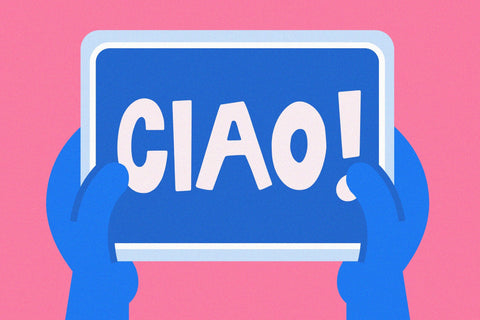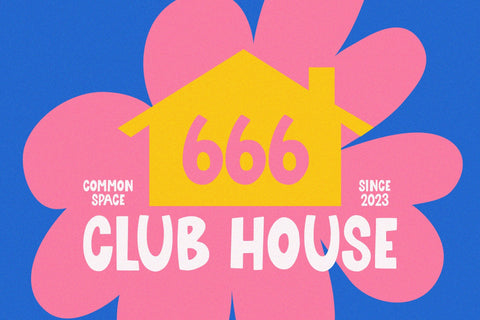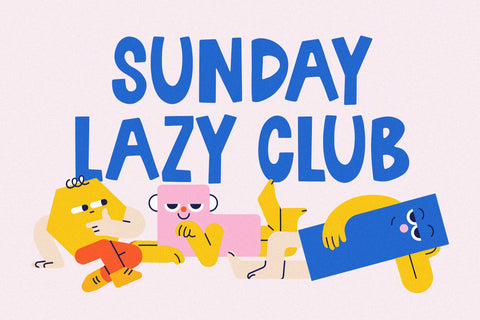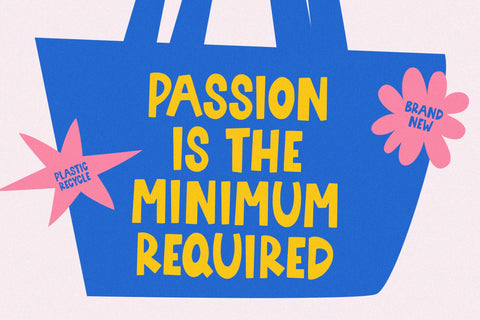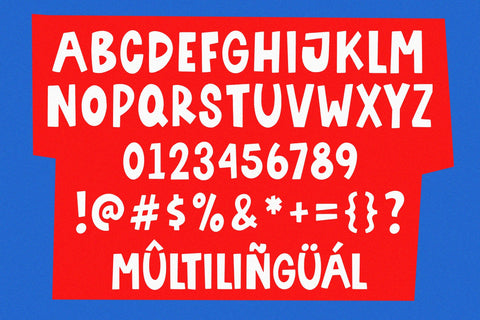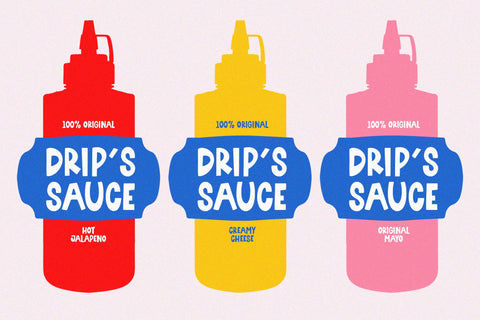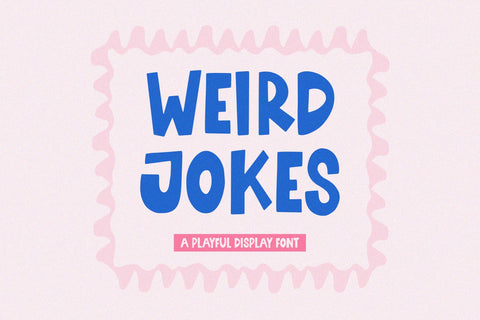
Weird Jokes - Playful Display Font
Weird Jokes is a Playful Display Font
This font is a quirky and energetic display font that brings a fun, whimsical vibe to posters, branding, and creative projects.
Weird Jokes Font also supports multilingualism